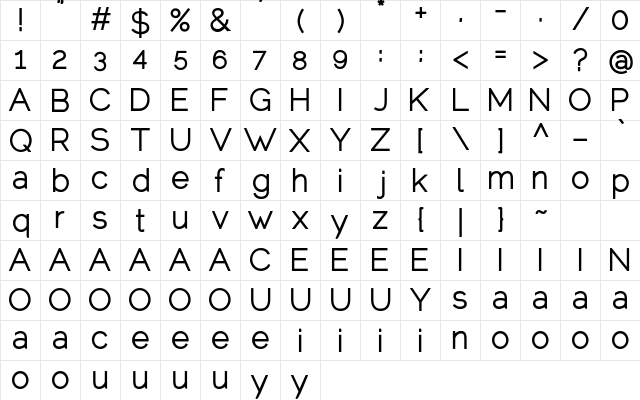
Hai Eisya Free Version
| Foundry | Putracetol Studio |
| Designer | Putra Novembria Candra Kusuma |
Design Context for Hai Eisya Typeface
Hai Eisya takes a measured approach to typography — its balanced proportions and neutral character make it a reliable workhorse for both digital and print work.